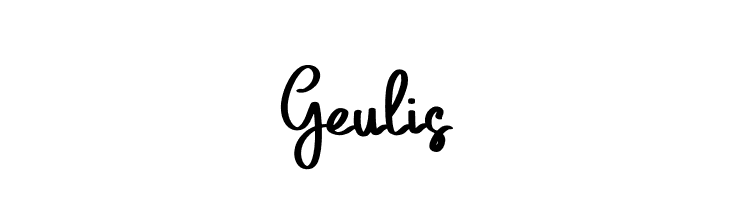
A whimsical and artistic font with playful curves and varying stroke widths.
A dynamic, expressive handwritten font with fluid, cursive strokes.
A playful, bold font with thick, rounded, hand-drawn characters.
A playful, hand-drawn font with thick, rounded strokes and a whimsical style.
A bold, geometric font with a futuristic digital aesthetic.
A bold, geometric font with a futuristic, digital aesthetic.
A bold, distressed font with a grunge texture and high contrast.
A bold, geometric font with Art Deco influences, ideal for impactful designs.
A dot-based, pixelated font with a retro digital style.
A modern, geometric font with rounded edges and bold, uniform strokes.
A bold, playful font with rounded, bubble-like characters and outlined edges.
A playful and artistic font with elongated, curved lines and a modern look.
A bold, angular font with a rebellious and dynamic style.
A bold, graffiti-inspired font with sharp, angular edges and a 3D effect.
A distressed, grungy font with jagged edges and uneven strokes, perfect for bold, alternative designs.
A whimsical, hand-drawn font with irregular strokes and a playful style.
Hand-drawn, playful display font with a cartoonish vibe.